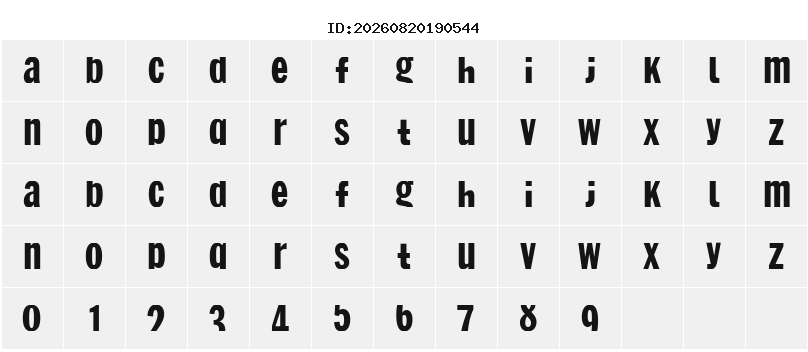
SelfCensorShit Preview
• Font Name: SelfCensorShit
• Full Font Name: SelfCensorShit-Regular
• PostScript Name: SelfCensorShit-Regular
About SelfCensorShit.ttf
SelfCensorShit.ttf is a modern, elegant sans-serif font designed for ultimate readability and visual harmony. Perfect for branding, headlines, web design, and print materials.